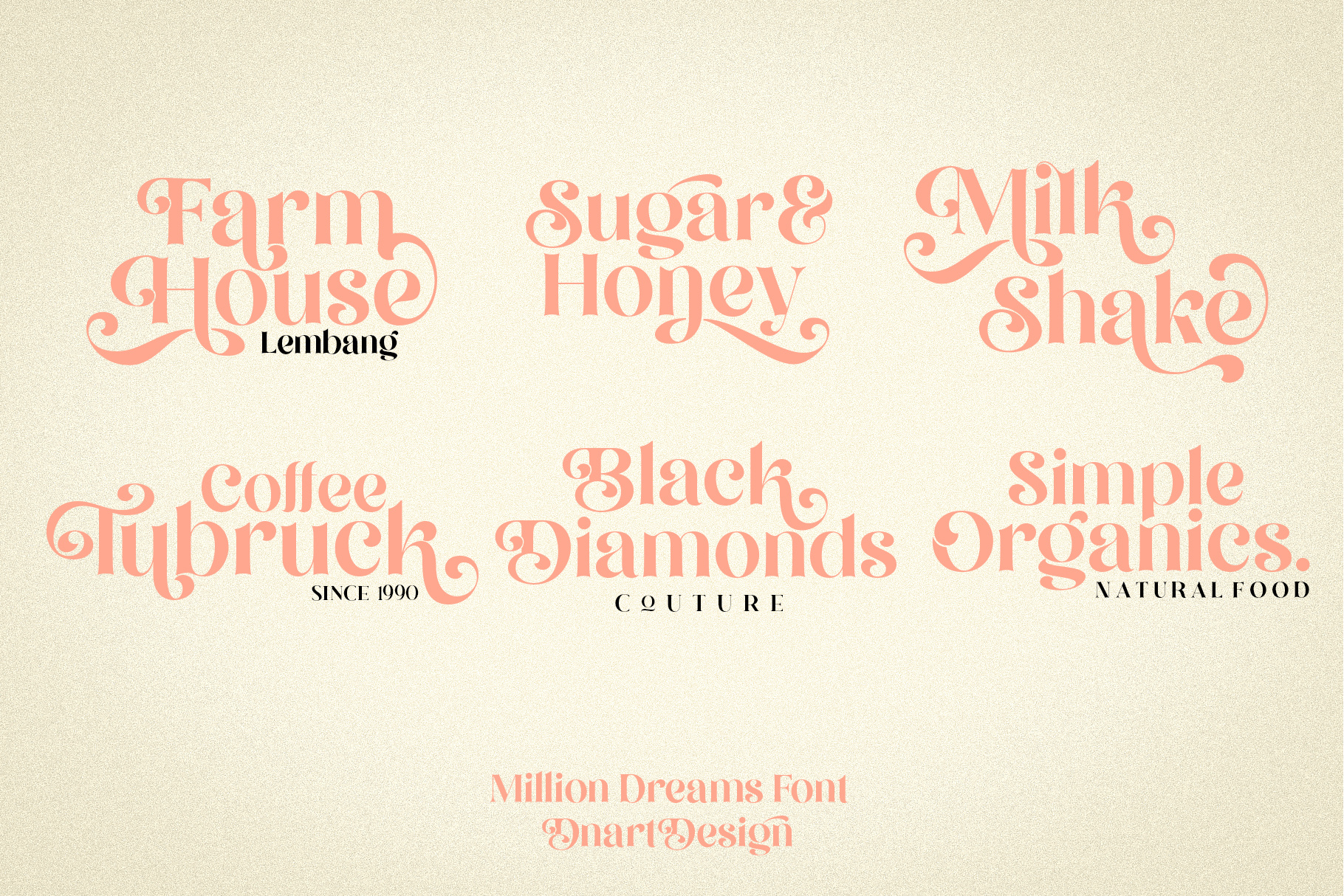
Million Dreams Font
this font is called million dreams. A font that has stylistics and ligatures that will make your project stand out. This font consists of uppercase, lowercase, numbers, punctuation and is supported by multilingual symbols. let’s immediately solidify your project with million dreams